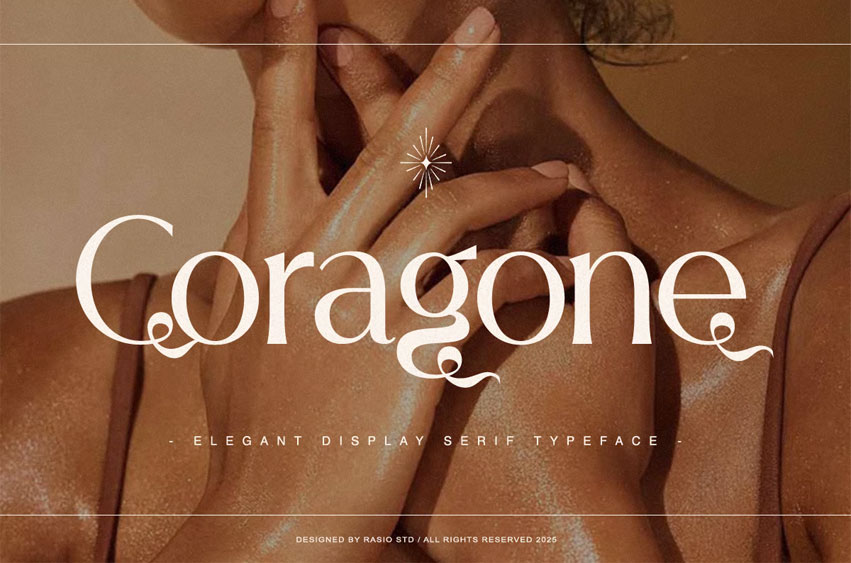
Coragone Font is an elegant display serif typeface crafted to evoke softness, beauty, and refined charm. It features graceful curves, high contrast strokes, and stylish ligatures, combining both classic serif structure and modern decorative elements. This typeface includes uppercase, lowercase, alternates, and a set of unique ligatures offering versatility for standout typography in high-end projects. The font is ideal for sophisticated branding, fashion, editorial headlines, beauty packaging, and creative portfolios.
Relevance and Use Cases is perfect for designers and creative brands who value elegance and visual distinction. Its soft curves and decorative ligatures make it perfect for modern fashion branding, beauty campaigns, luxury packaging, and editorial design. Whether you’re developing magazine layouts, boutique identity systems, wedding designs, or lifestyle products, Coragone delivers a premium, artistic impression with strong aesthetic appeal.
Main Features:
• Ligatures & Alternate